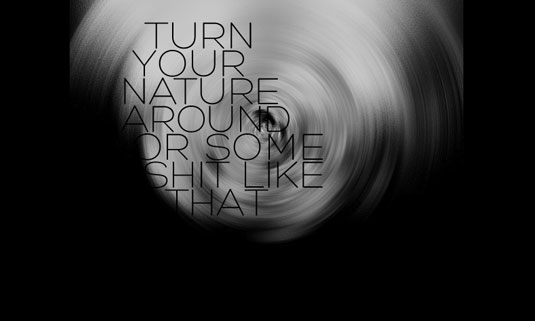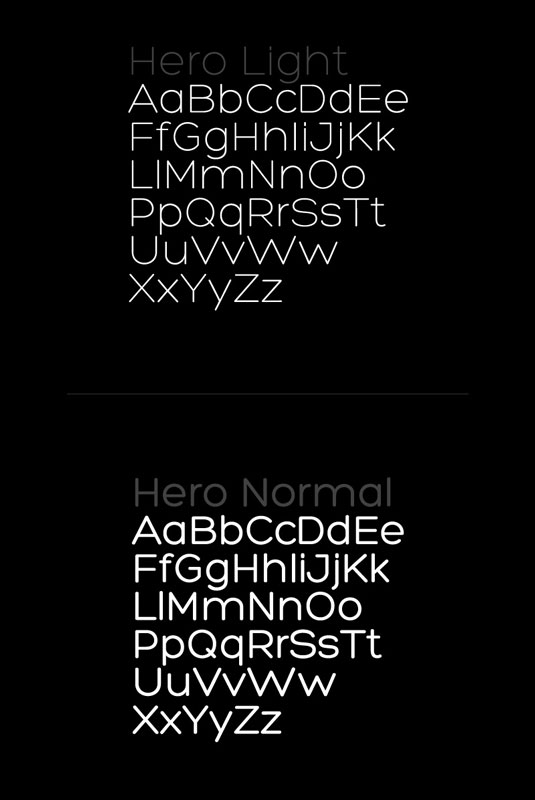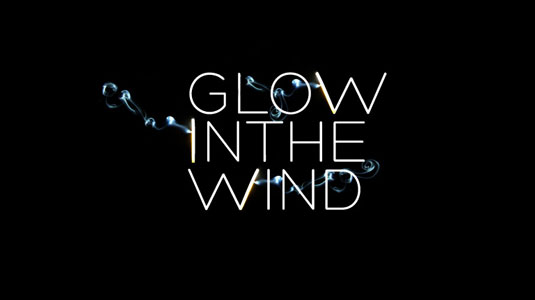
Font of the day: Hero
Hero from Fontfabric
Today's typeface is Hero, from the team at Fontfabric. It is described on the font foundry's website as being 'characterised by excellent legibility, well-finished geometric designs and optimized kerning - suited to headlines of all sizes and various types of graphic design, including posters and logos.